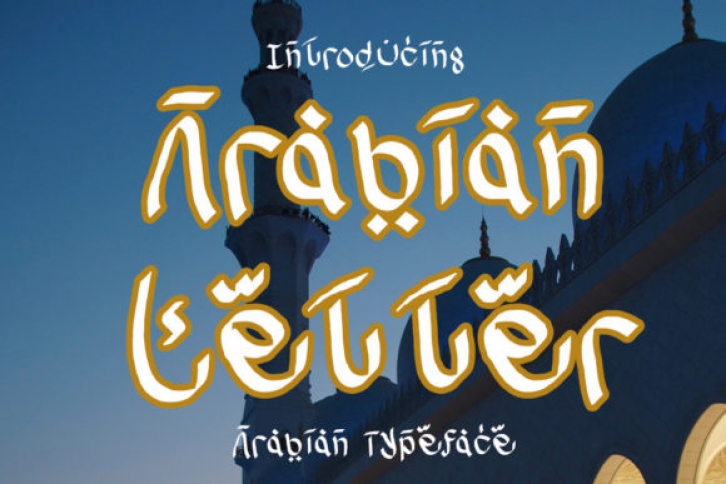
Arabian Letter is a magical display font carefully created with a touch of Arabian vibe. Whether you’re looking for fonts for Instagram or DIY projects, this font will turn any creative idea into a true piece of art!